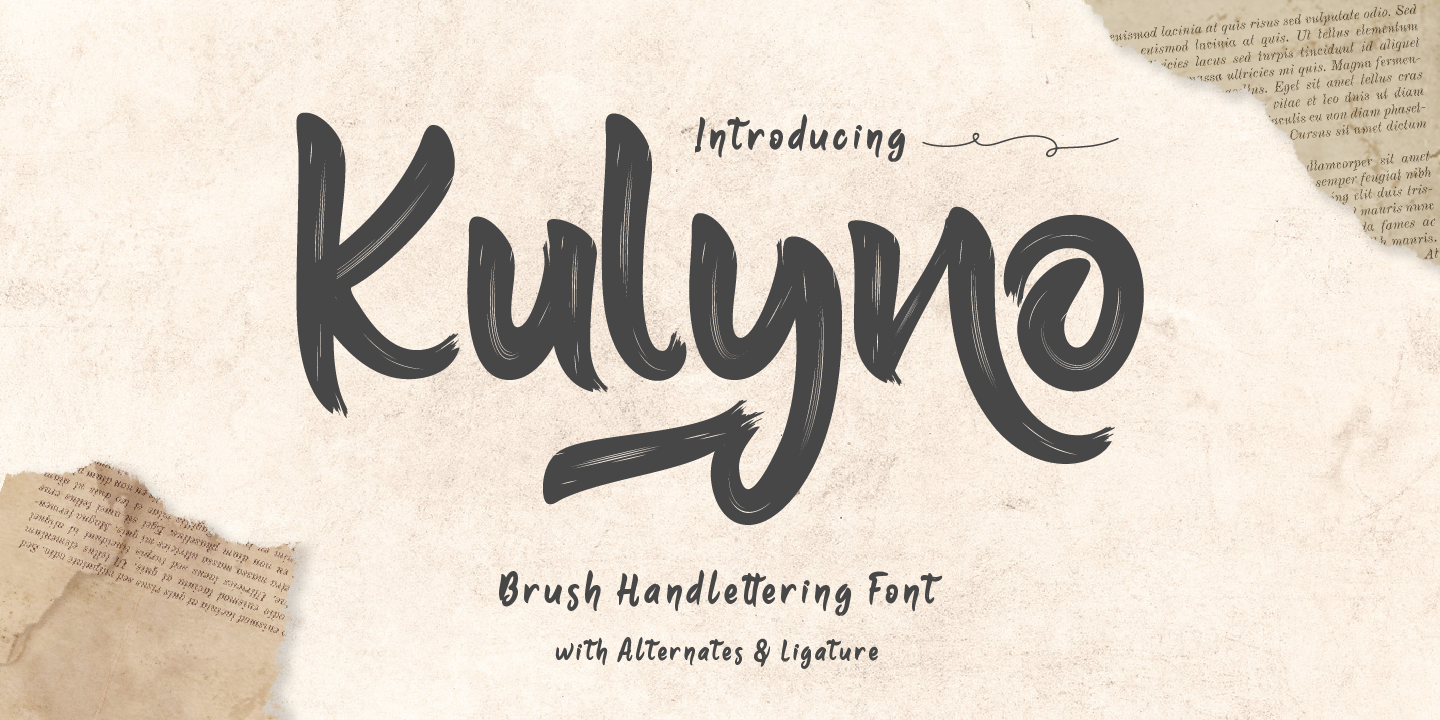
Kulyno Font is ideal for culinary branding, artisan food packaging, restaurant identity, gourmet product labels, food festival graphics, cooking show materials, farm-to-table campaigns, gastronomic publications, chef portfolio design, and delicious applications that celebrate authentic culinary artistry and the passionate craft of exceptional food creation.
What makes Kulyno Font truly exciting is its perfect embodiment of culinary passion and gastronomic artistry that captures the essence of exceptional cooking and the sensory pleasure of beautifully crafted food experiences. This exceptional typeface combines organic warmth with culinary sophistication, featuring distinctive letterforms and appetizing character that convey both artisanal craftsmanship and gastronomic excellence. The font's culinary personality and food-focused authenticity make it perfect for brands seeking to communicate flavor mastery, cooking passion, and the transformative art of creating memorable dining experiences through exceptional culinary skill.
The Kulyno Font family includes multiple weights and styles: Light, Regular, Medium, Bold, and Artisan variations designed for maximum culinary impact. Each family member maintains the distinctive gastronomic character while offering flexibility for diverse food applications and culinary branding systems. The comprehensive character set supports international cuisine typography needs and culinary design elements, making it suitable for global gastronomic communications.
When you choose Kulyno Font Free Download, you're selecting a typography recipe that delivers authentic culinary credibility and gastronomic excellence to every food-focused project. This flavorful typeface excels in applications where culinary authenticity and food passion are essential ingredients, delivering exceptional appetite appeal while maintaining artisanal authenticity. Whether you're designing restaurant brands, food packaging, culinary campaigns, or gastronomic publications, this font provides the culinary sophistication and food artistry that resonates with food lovers who appreciate authentic flavors, culinary craftsmanship, and the passionate dedication to creating extraordinary dining experiences.